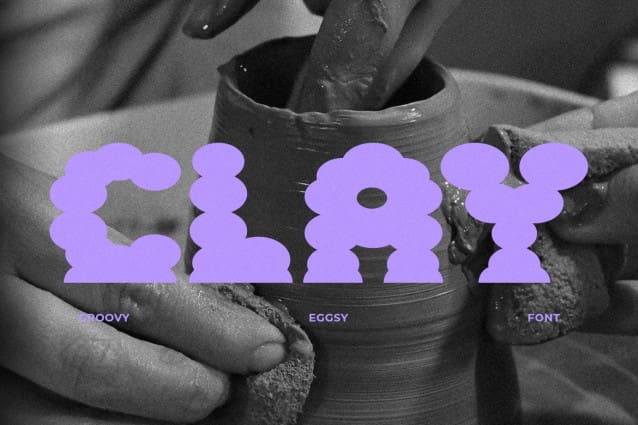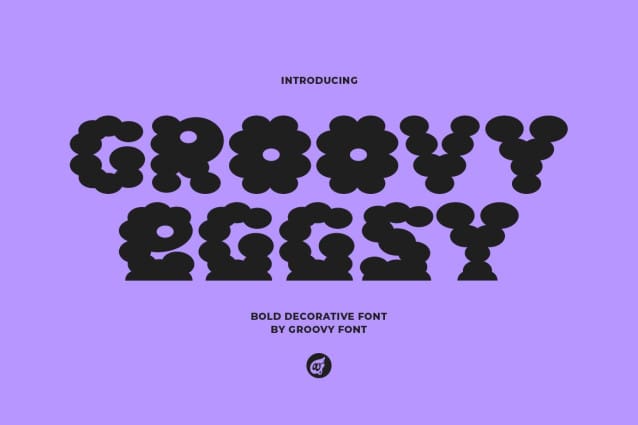
Groovy Eggsy Font
Groovy Eggsy Font is a bold decorative font with a unique round appearance reminiscent of a cloud.
The soft curves and playful design of this font make it perfect for projects that require a fun and whimsical touch. Its boldness adds a striking element to any text, making it stand out with a touch of creativity and charm.